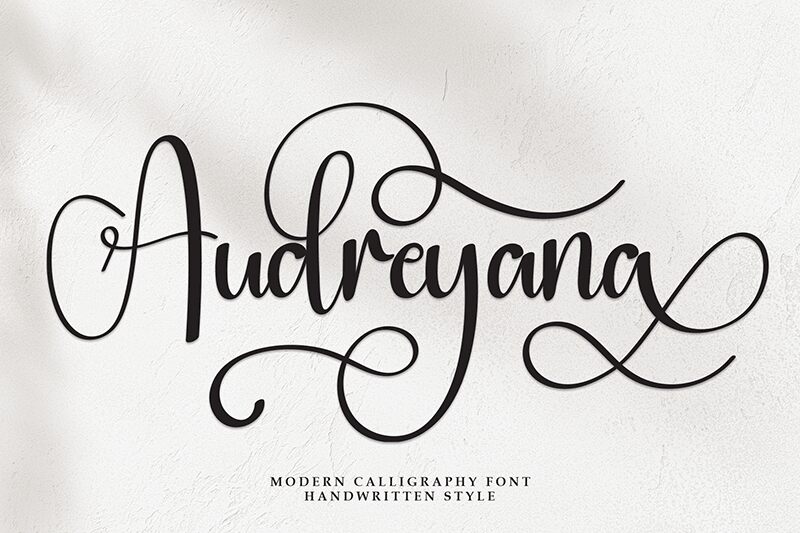
Audreyana
Audreyana font by Scratchones is a free handwritten font with a modern expressive style. Its elegant and sophisticated presentation makes it an instant eye-catcher with its smooth flow and readable signature style. Trendy in every angle, Audreyana will surprise you with the amount of things you’ll be able to pull off when using it.